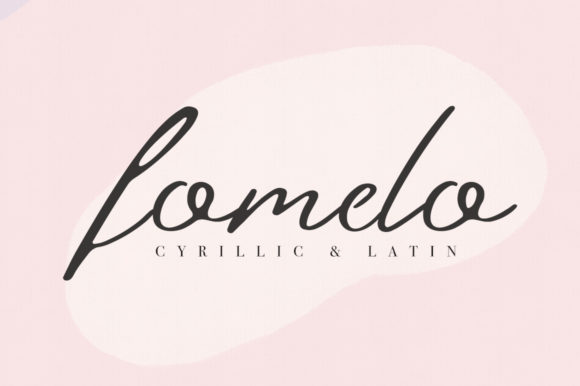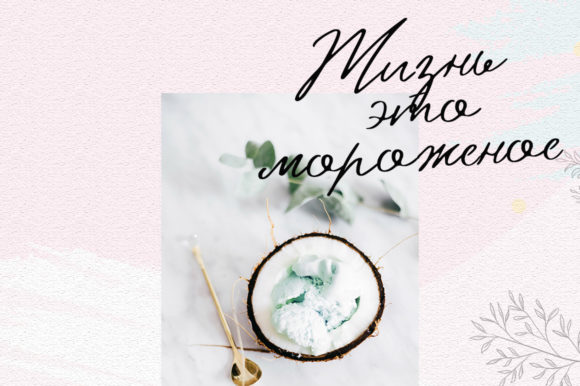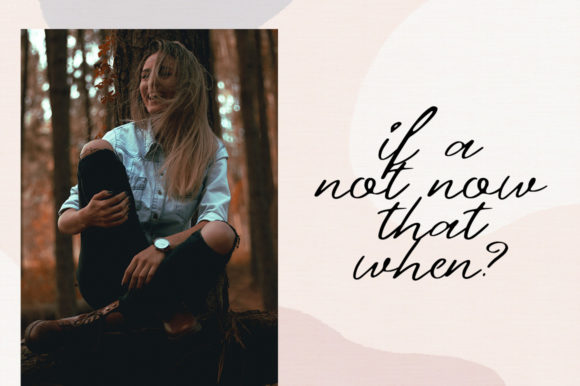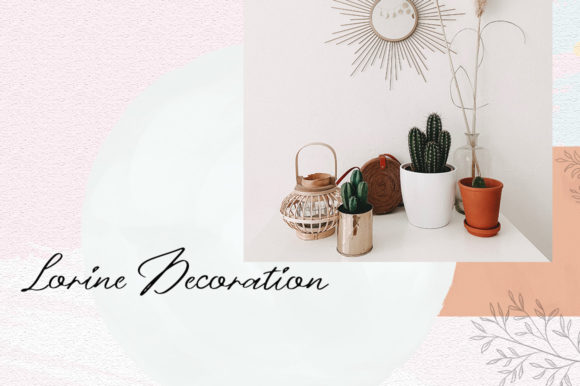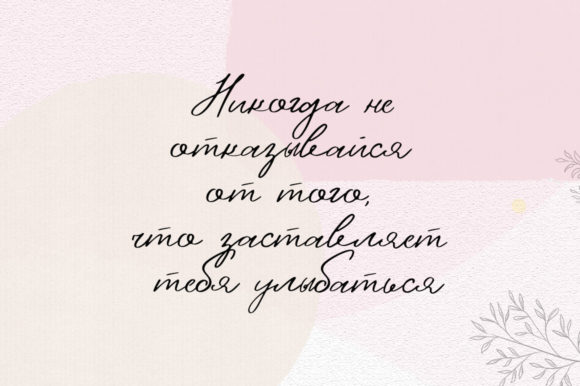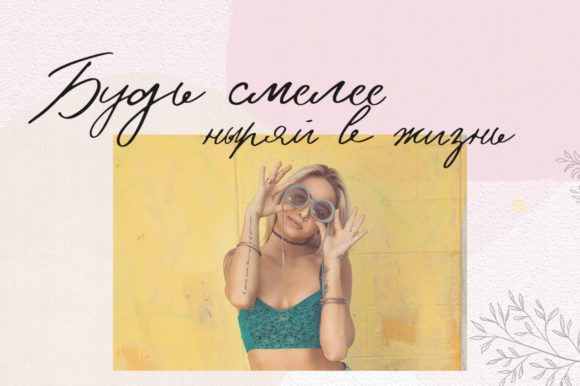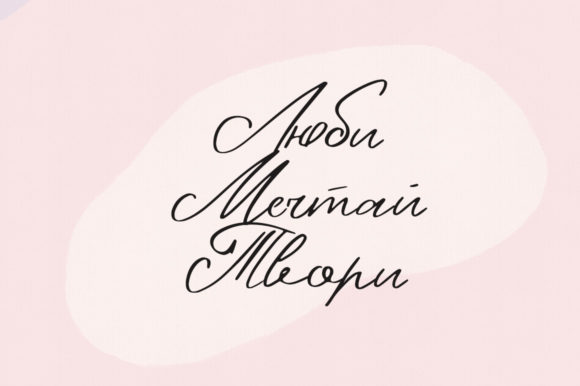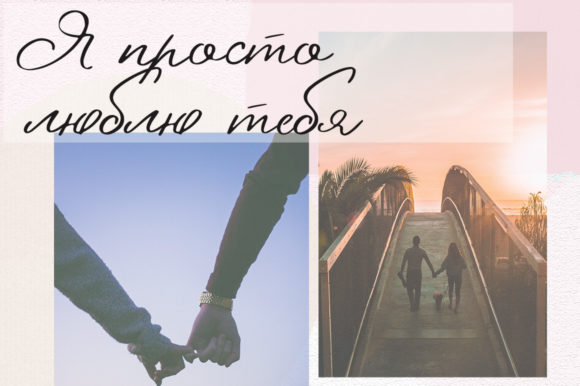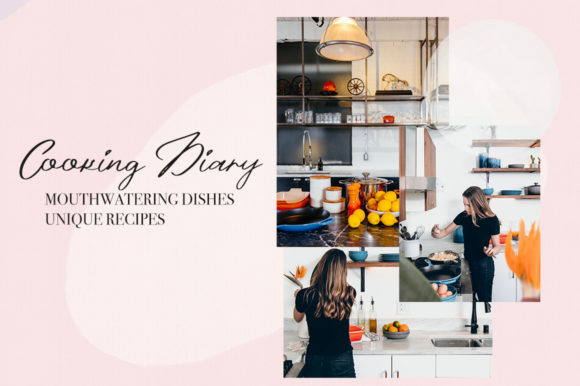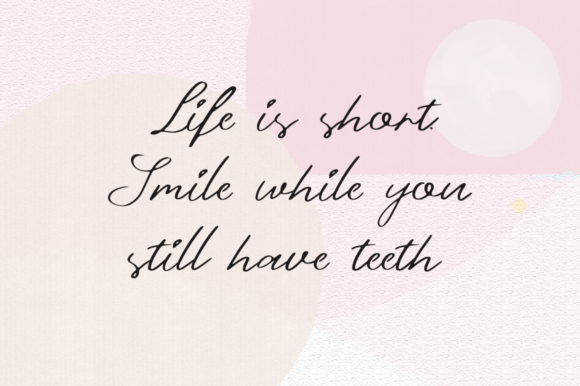
Fomelo Font
About Fomelo Font
Fomelo is a cute and light handwritten font with a casual vibe. Use it to add a touch of authenticity to any design project.